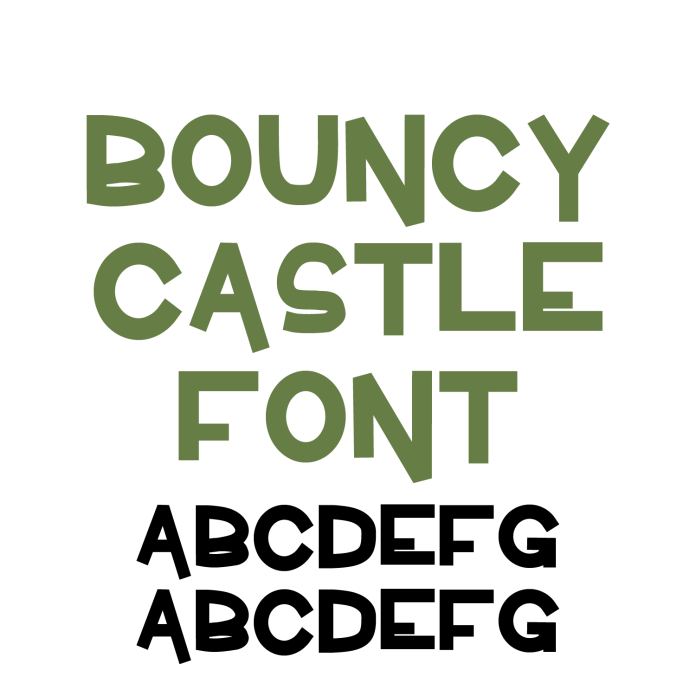
Say hello to Bouncy Castle Font—a cheerful and energetic playful handwritten sans serif font that brings fun to every crafting project! With its bouncy letters and hand-drawn charm, this font is perfect for stickers, greeting cards, party decorations, labels, classroom designs, and custom gifts. Its lively, easy-to-read style adds a joyful vibe to both vinyl projects and printables, and it’s designed to cut cleanly with your favorite cutting machine. Whether you're creating for kids, events, or just love playful design, Bouncy Castle Font will make your crafts stand out. Download today and add some bounce to your creativity!